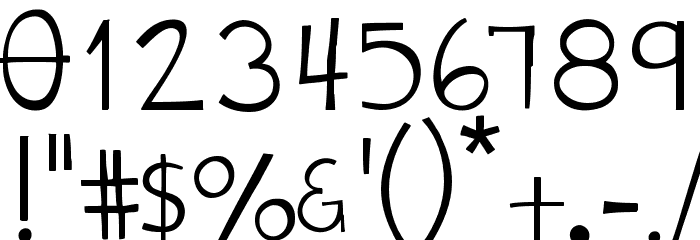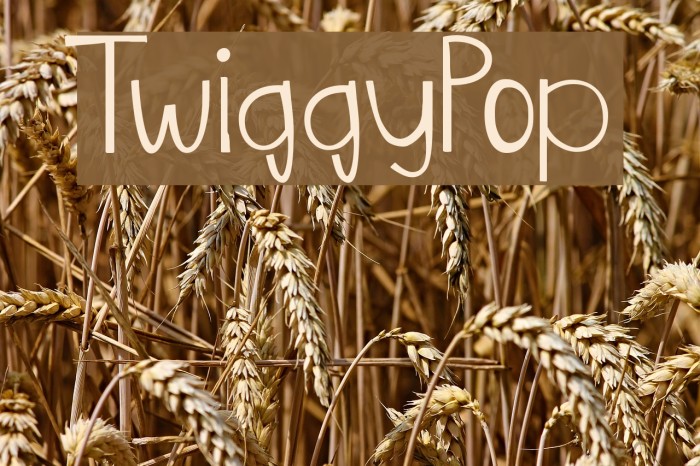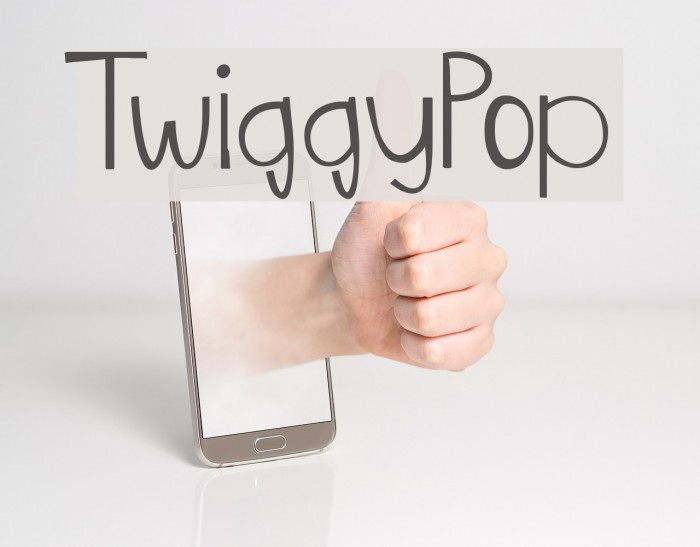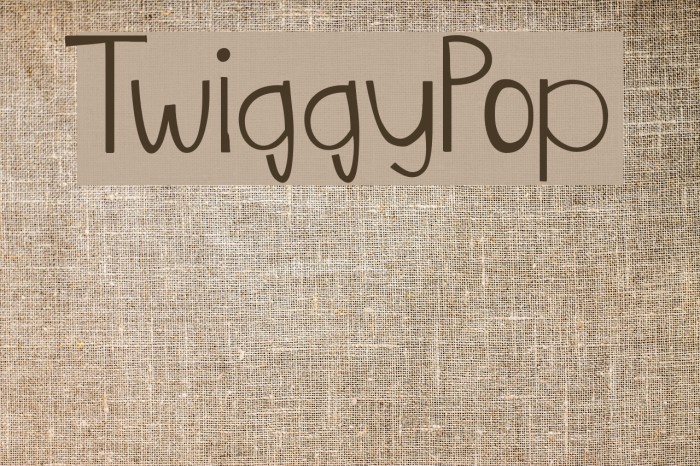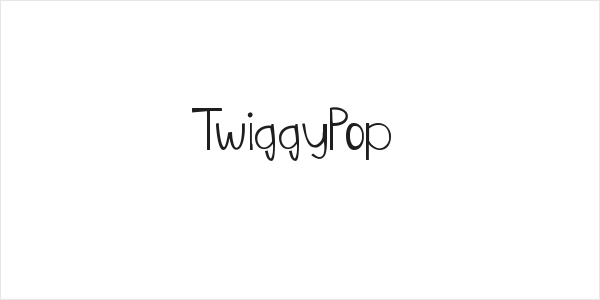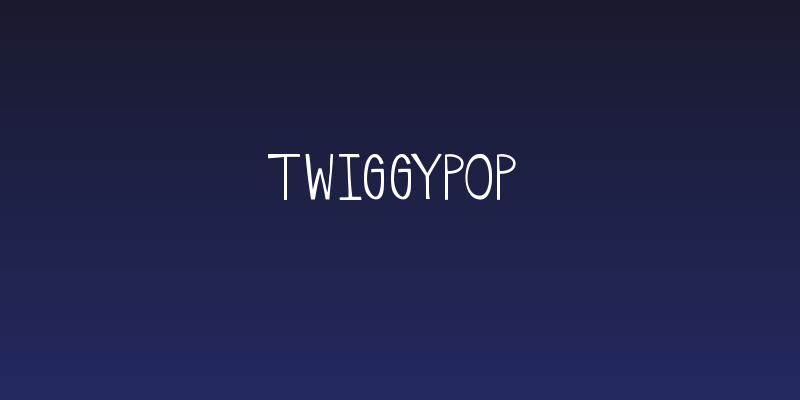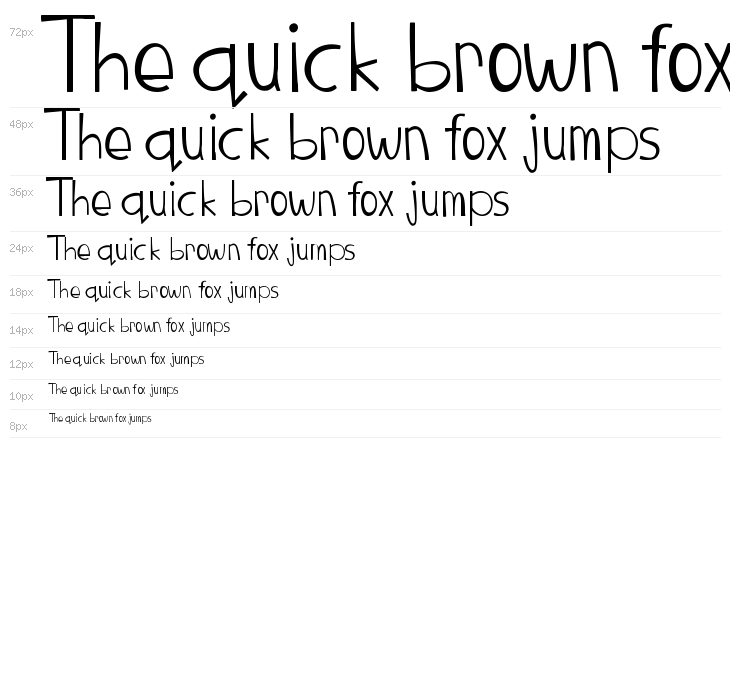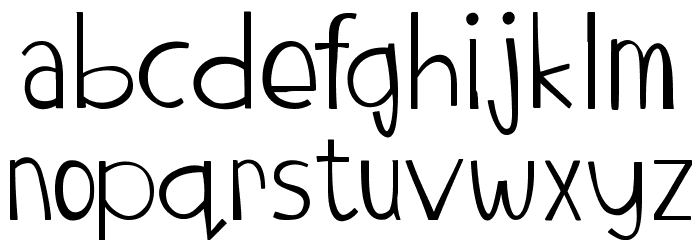
TwiggyPop Font
TwiggyPop Description
This font features a playful and quirky design, characterized by its tall, narrow letters with a hand-drawn feel. The strokes are consistent in width, giving it a monolinear appearance, while the slightly irregular shapes add a whimsical touch. The uppercase letters are bold and prominent, while the lowercase letters maintain a friendly and approachable style. The numbers and special characters follow the same playful aesthetic, making it suitable for creative and informal projects. The overall design is clean yet distinctive, making it versatile for various uses.
| Proposed Projects | Ideal for children's books, playful branding, casual invitations, and creative posters. |